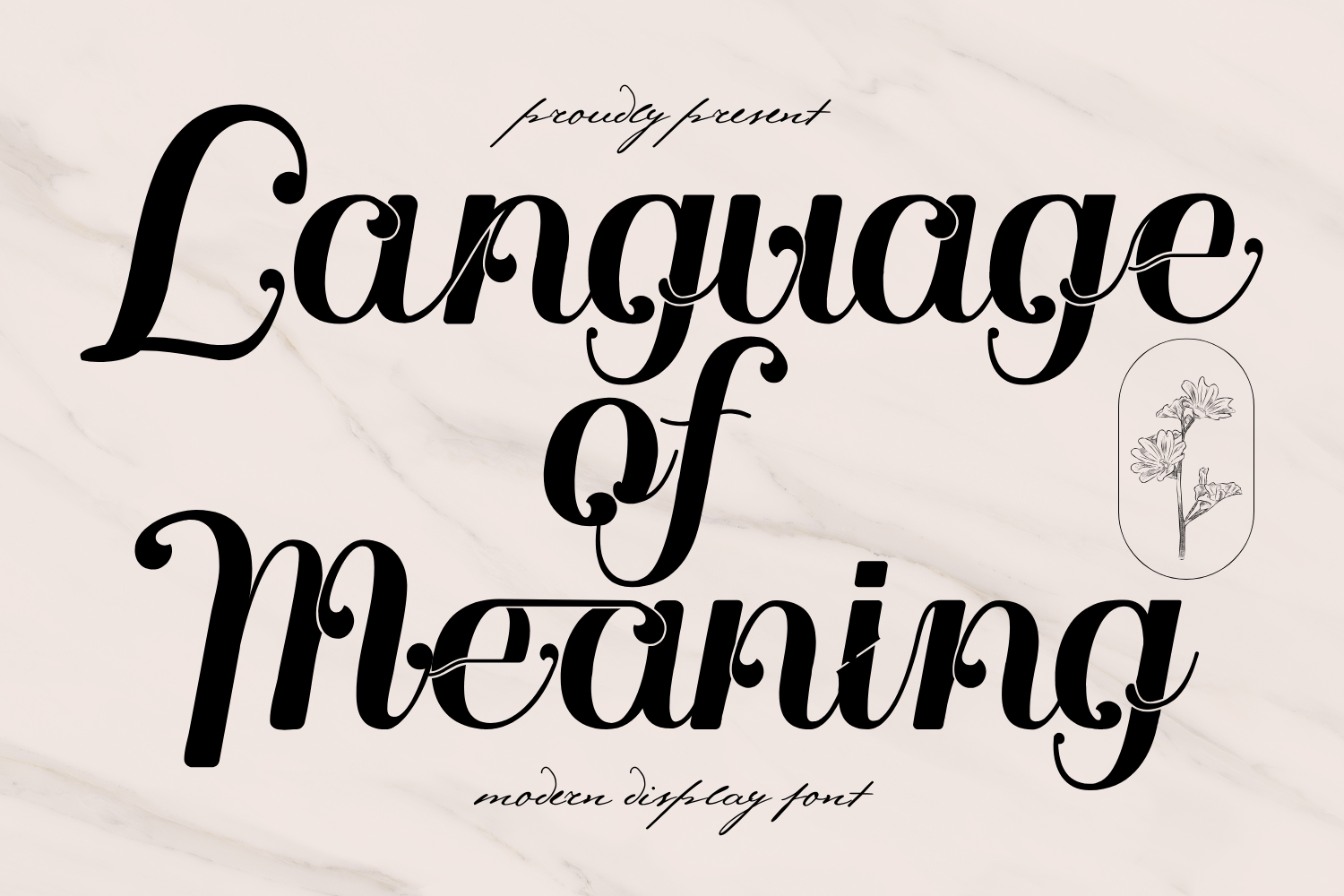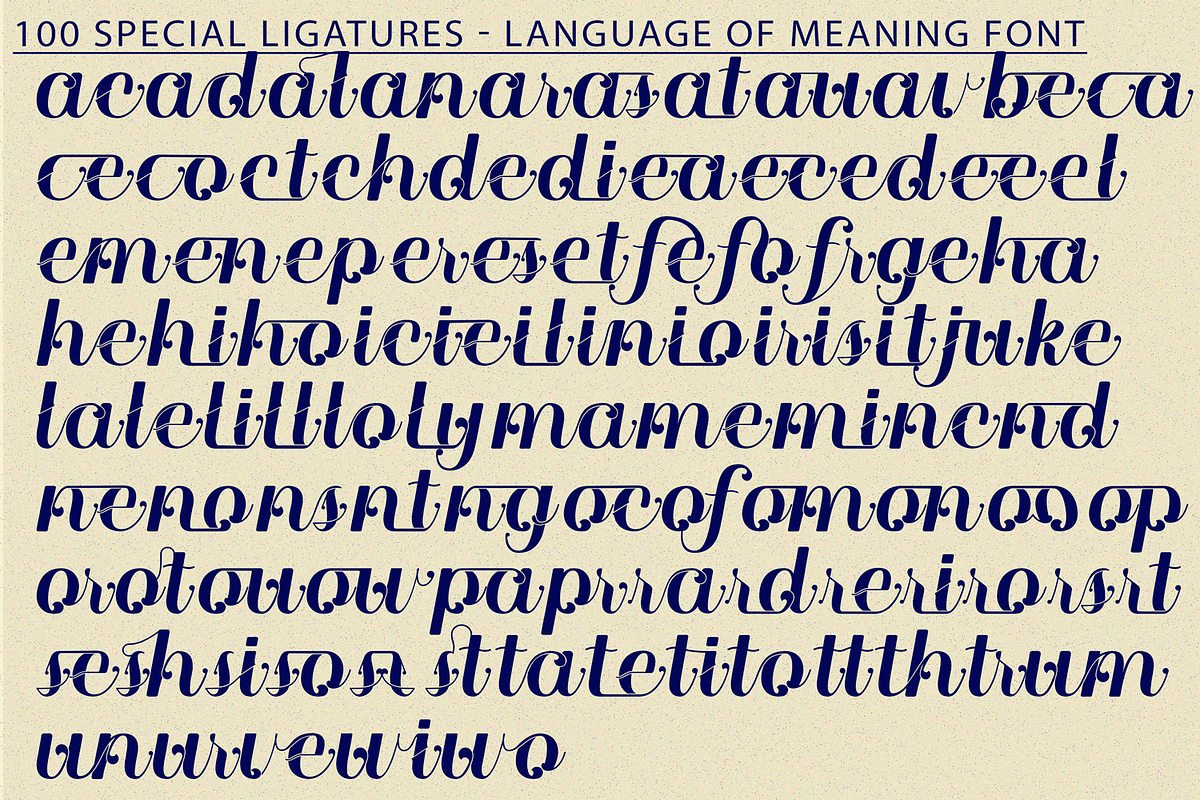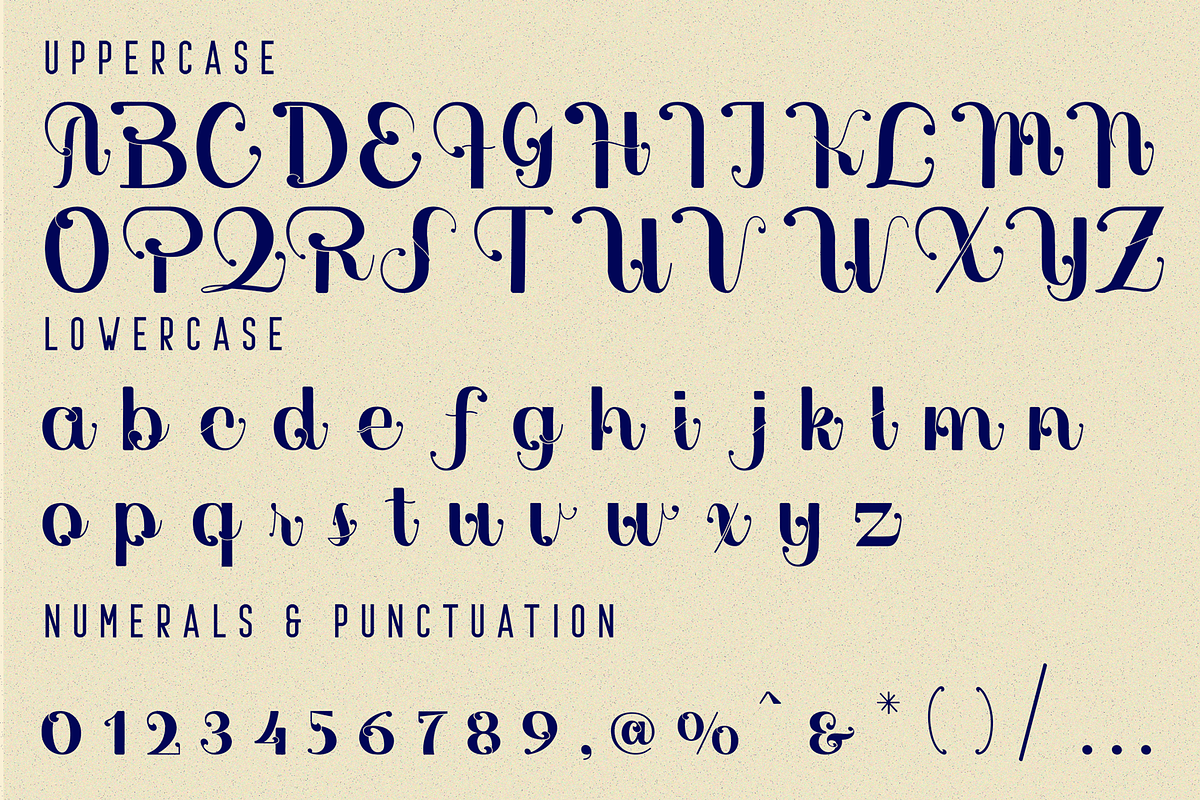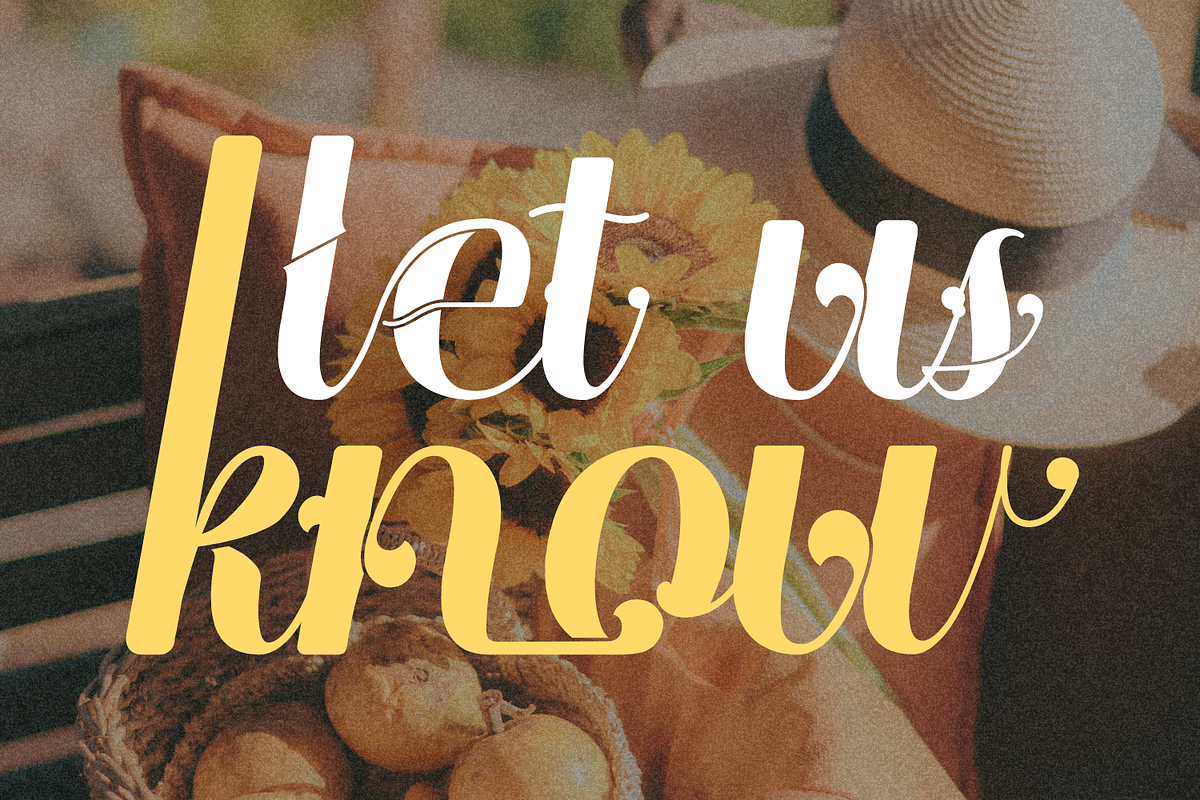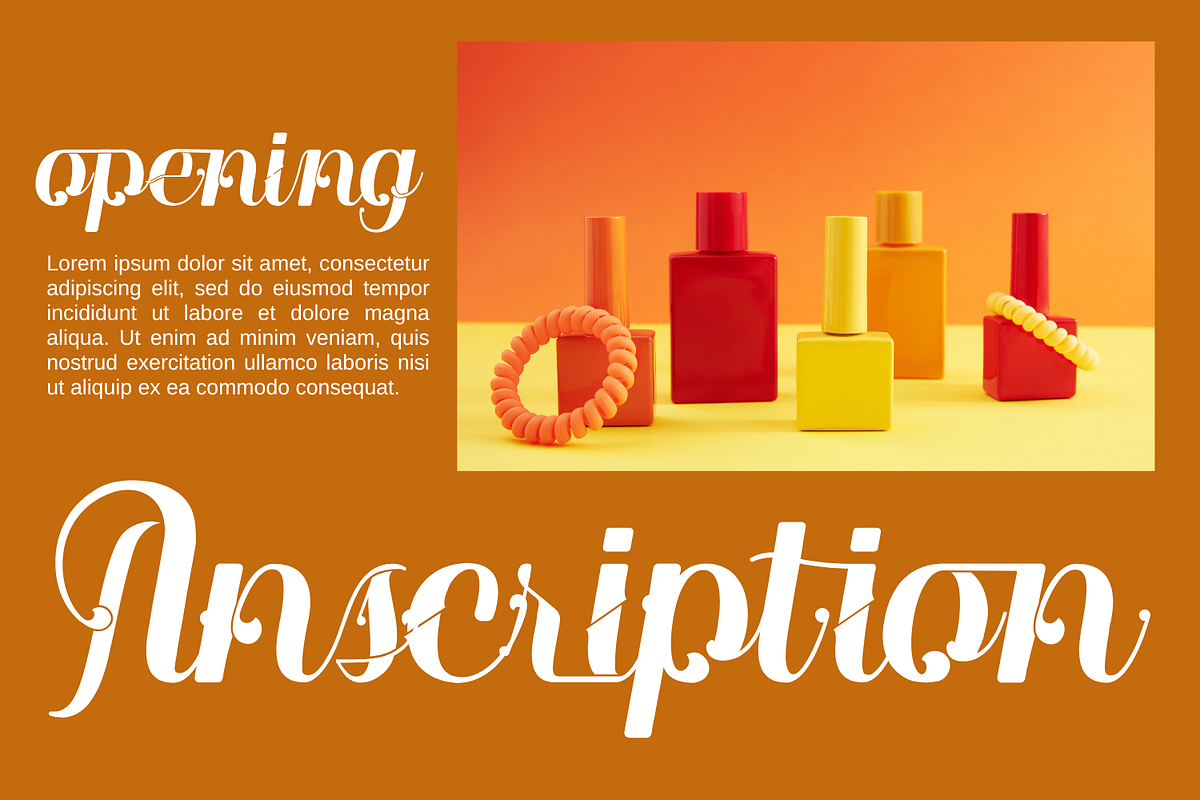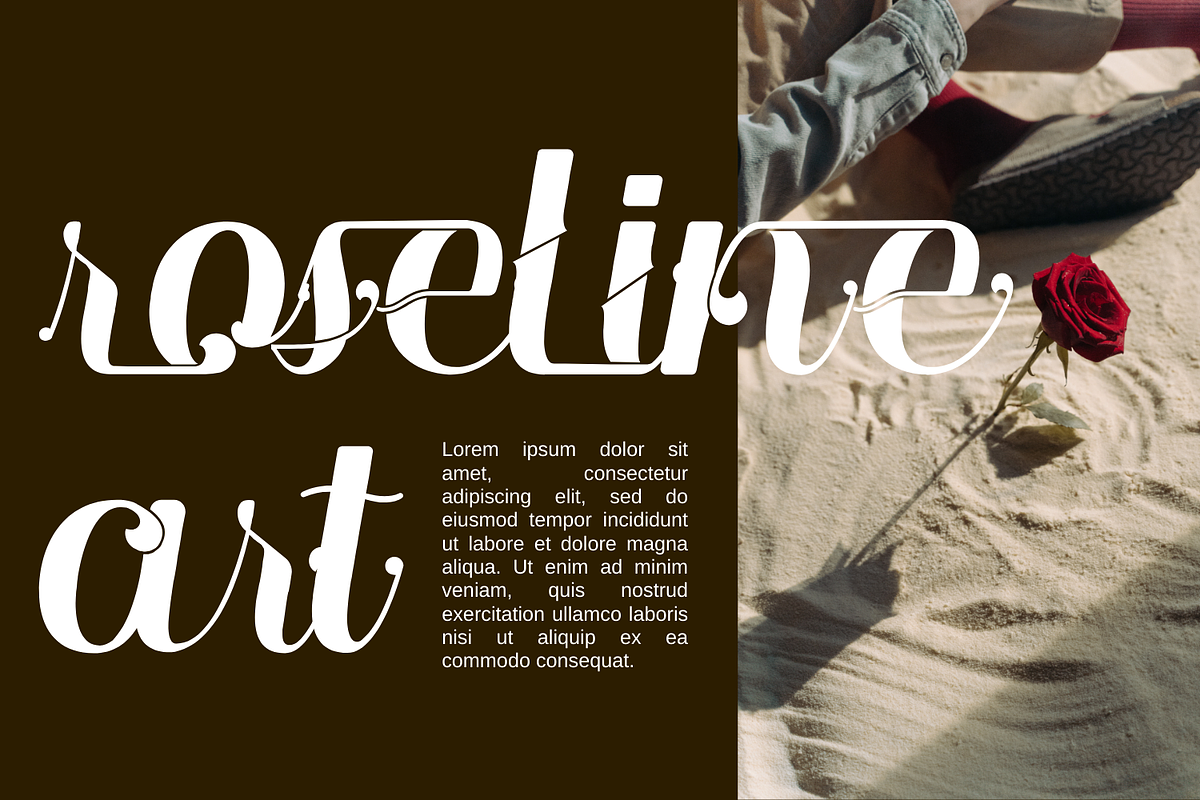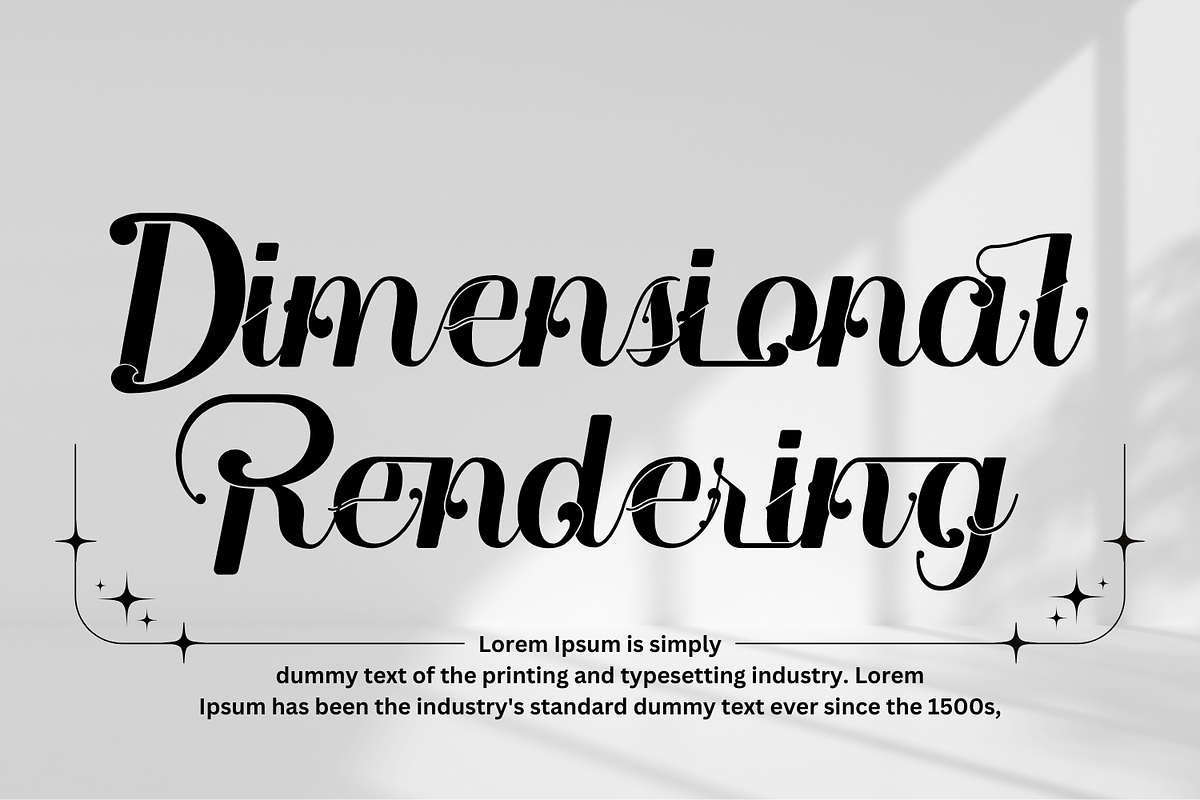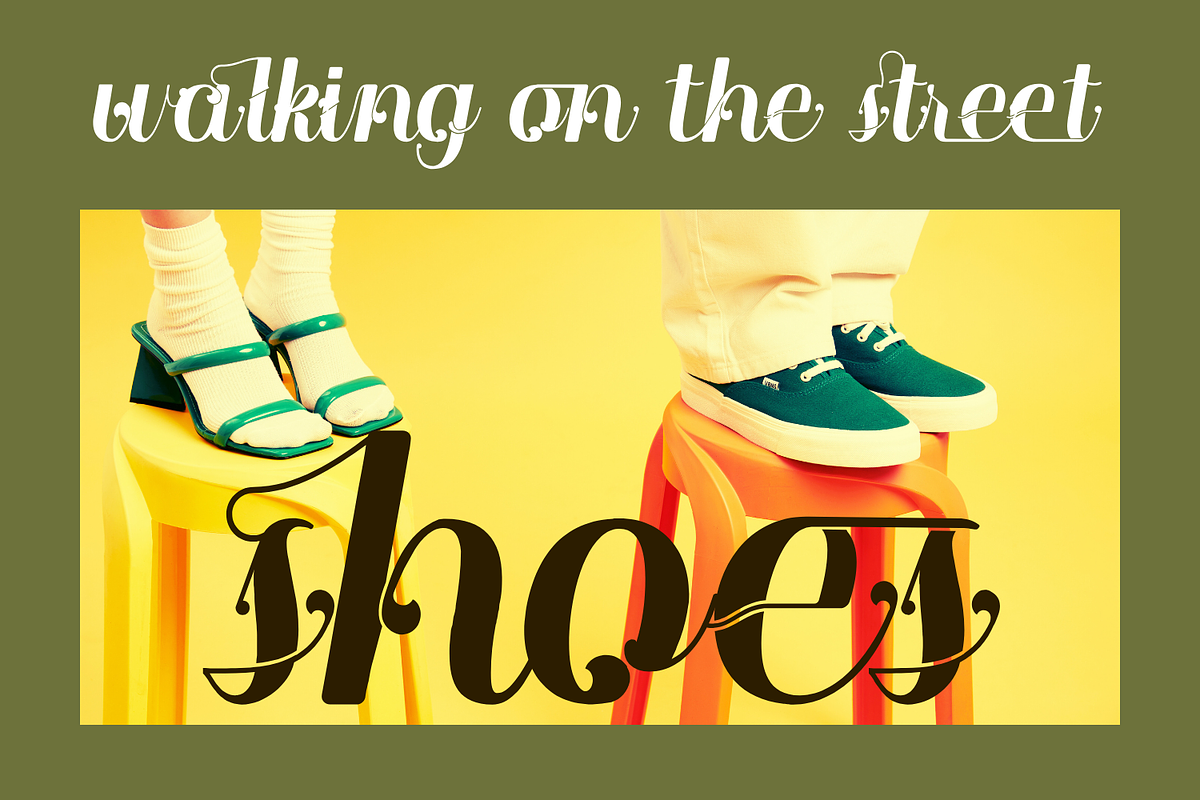
Language of Meaning - Elegant Font
Introducing Language of Meaning - Elegant Font: A Modern & Elegant Display Font, a beautifully crafted modern display font designed to bring elegance and flair to your creative projects. With its flowing curves, high-contrast strokes, and graceful swashes, Language of Meaning blends contemporary style with timeless calligraphic beauty. Perfect for headlines, branding, logos, invitations, packaging, and more, this versatile font adds a touch of luxury and distinction.
- Uppercase & Lowercase Letters: A full set of beautifully designed characters. ~100 Special Ligatures: Enhance your typography with unique and seamless letter combinations that add a custom-made feel.
- Numerals & Punctuation: Complete set of numbers and punctuation marks styled to match the font's elegance.
- Accented Characters: Extensive multilingual support with a wide range of accented characters.
About 100 ligatures combined Font:
ac ad al an ar as at au av be ca ce ch co ct de di ea ec ed ee el em en ep er es et fe fo fr ge ha he hi ho ie ic il in io ir is it ju ke la le li ll lo ly ma me mi nc nd ne ng no nt ns oc of om on oo op or ot ou ow pa pr ra rd re ri ro rs rt se sh si so ss st ta te th ti to tr tt um un ur ve wi wo